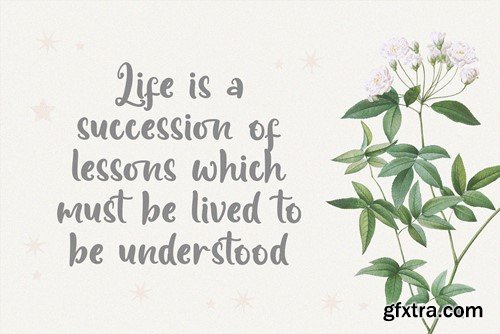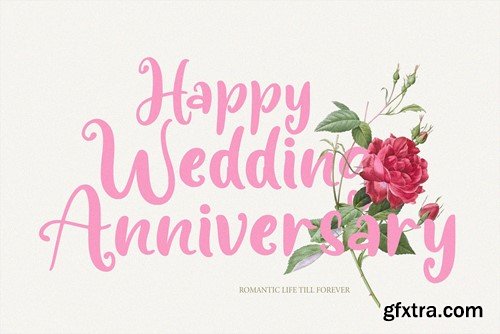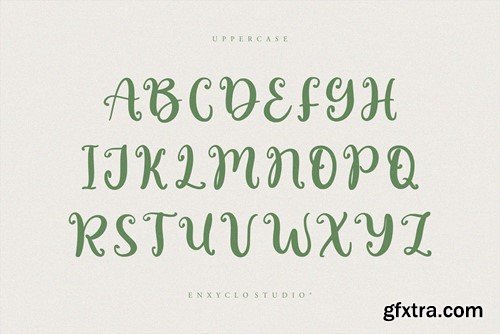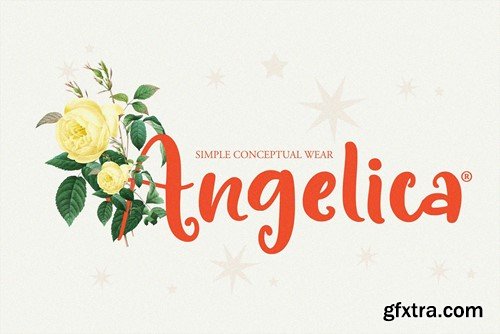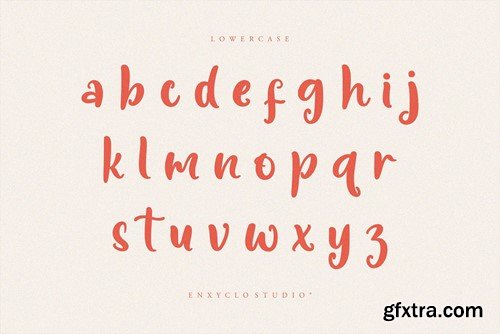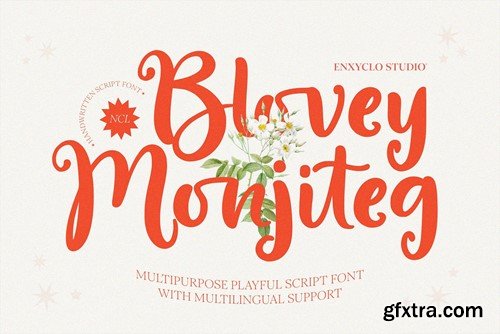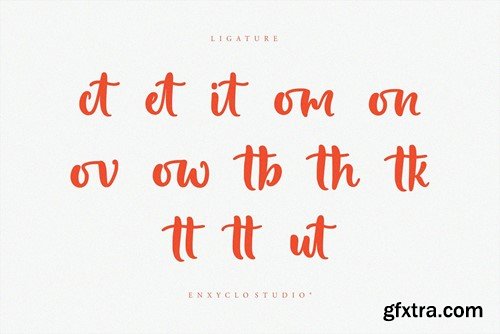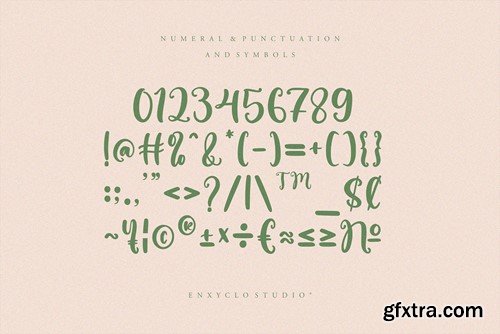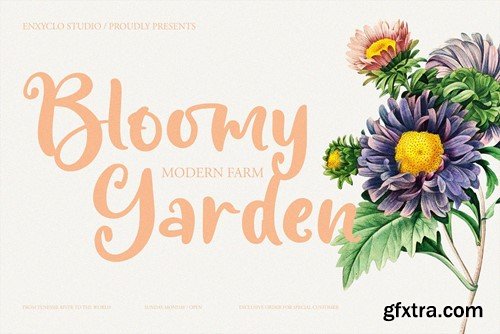
NCL Blovey Monjiteg - Handwritten Script Font V5J6HLW
NCL Blovey Monjiteg - Handwritten Script Font
NCL Blovey Monjiteg is a handwritten script display font. Masterfully designed to become a true favorite, this font has the potential to bring each of your creative ideas to the highest level! It was purposely crafted to be used in large point sizes, although it doesn’t lose its magic in small point sizes. It is perfect for headline, digital ads, magazines, website, poster, branding, and logos. No matter the topic, this font will be an incredible asset to your fonts’ library, as it has the potential to elevate any creation. With this beautiful font, absolutely you can make your project stand out from the rest.
FEATURES
• 359 Unique Glyphs
• 13 Ligature
• Uppercase & Lowercase
• Numeral, Punctuation & Symbols
• Multilingual Support